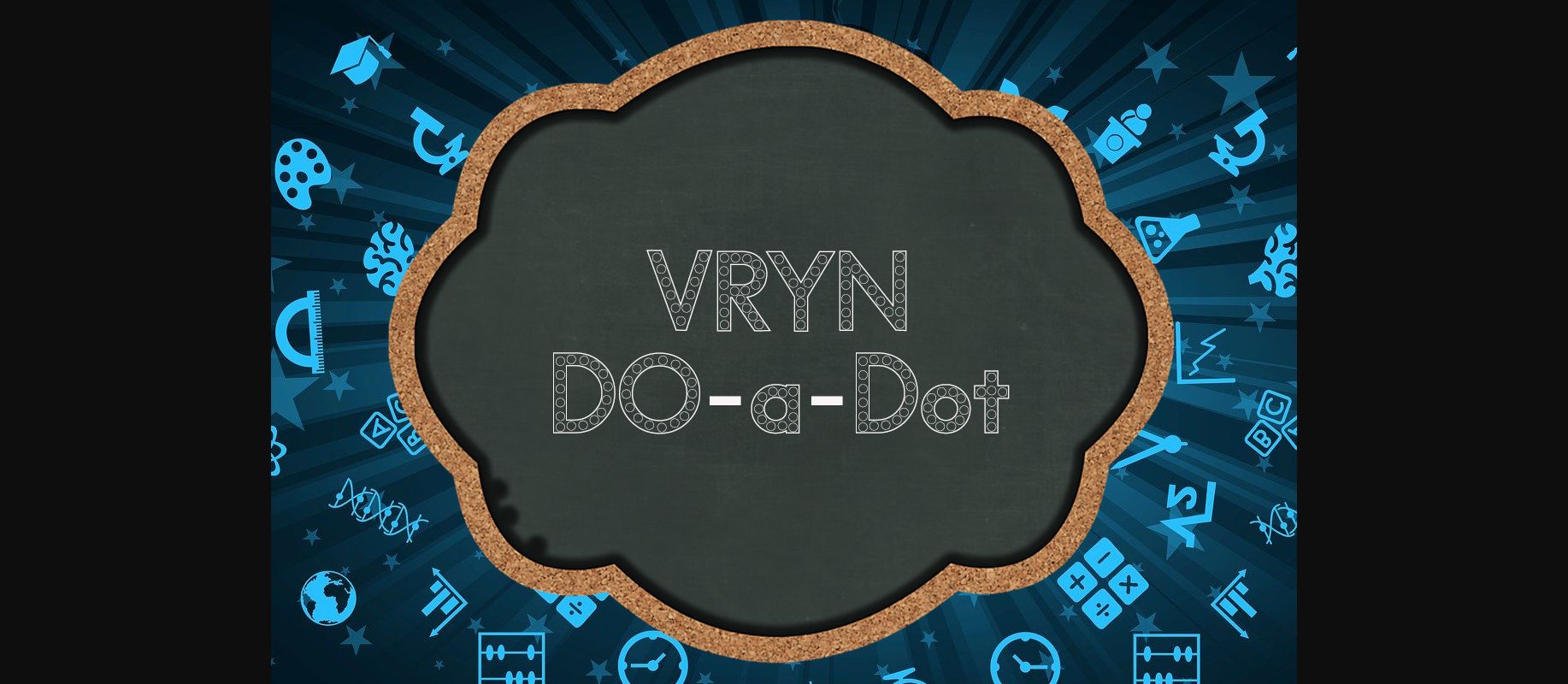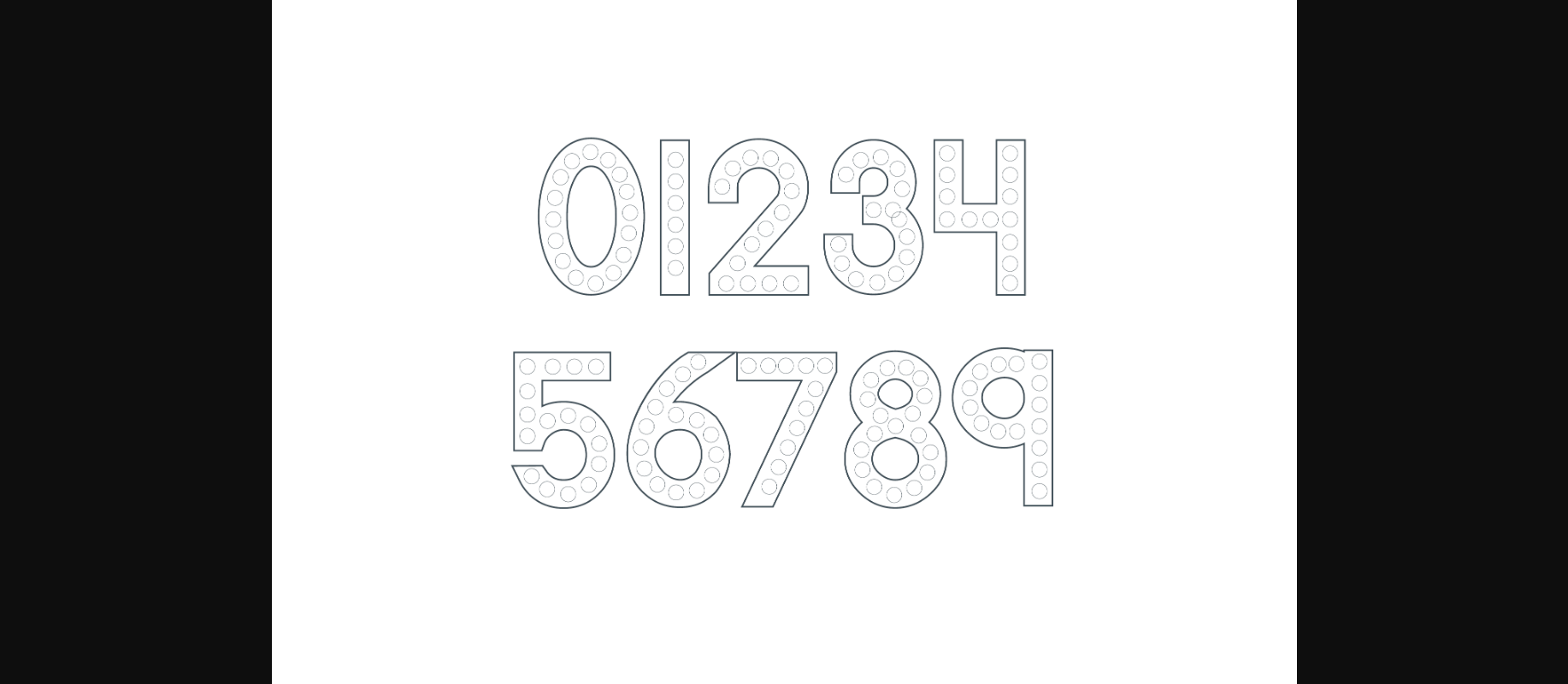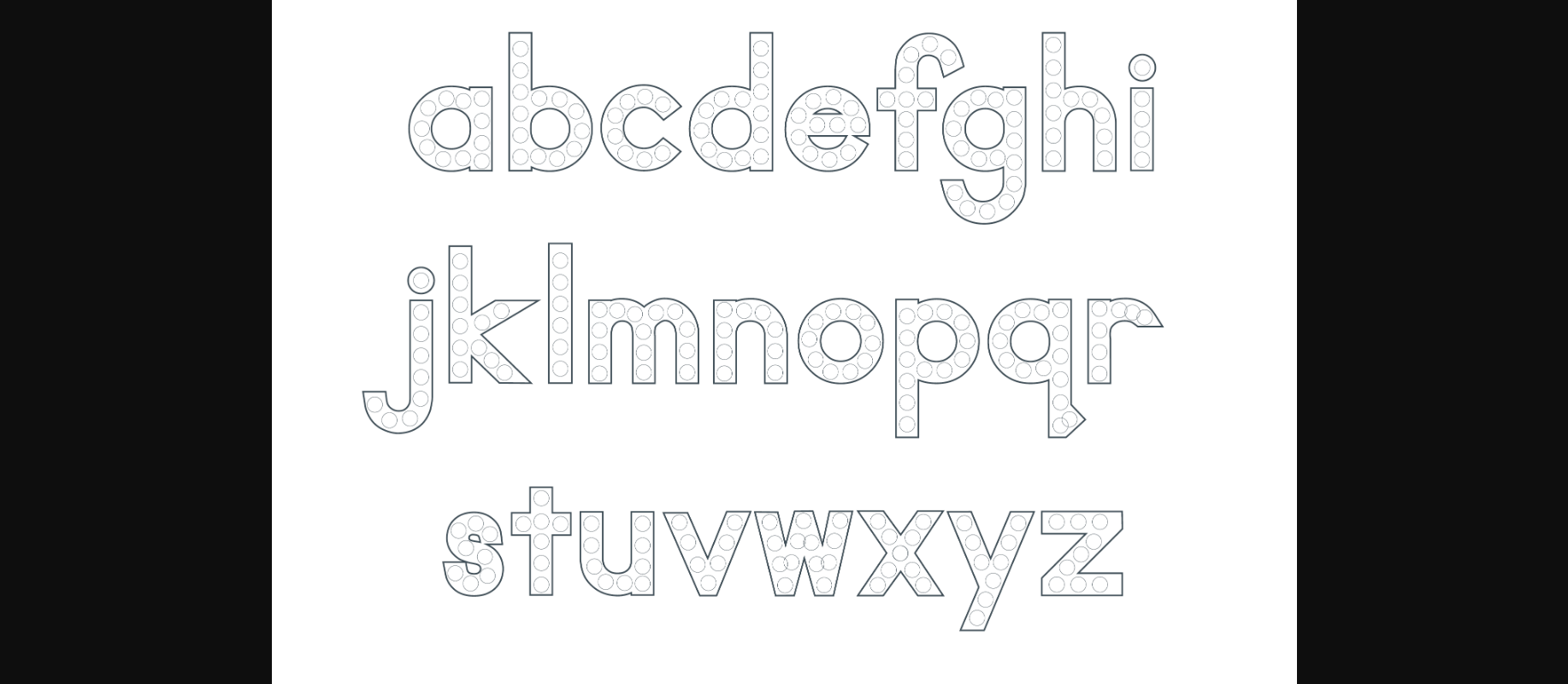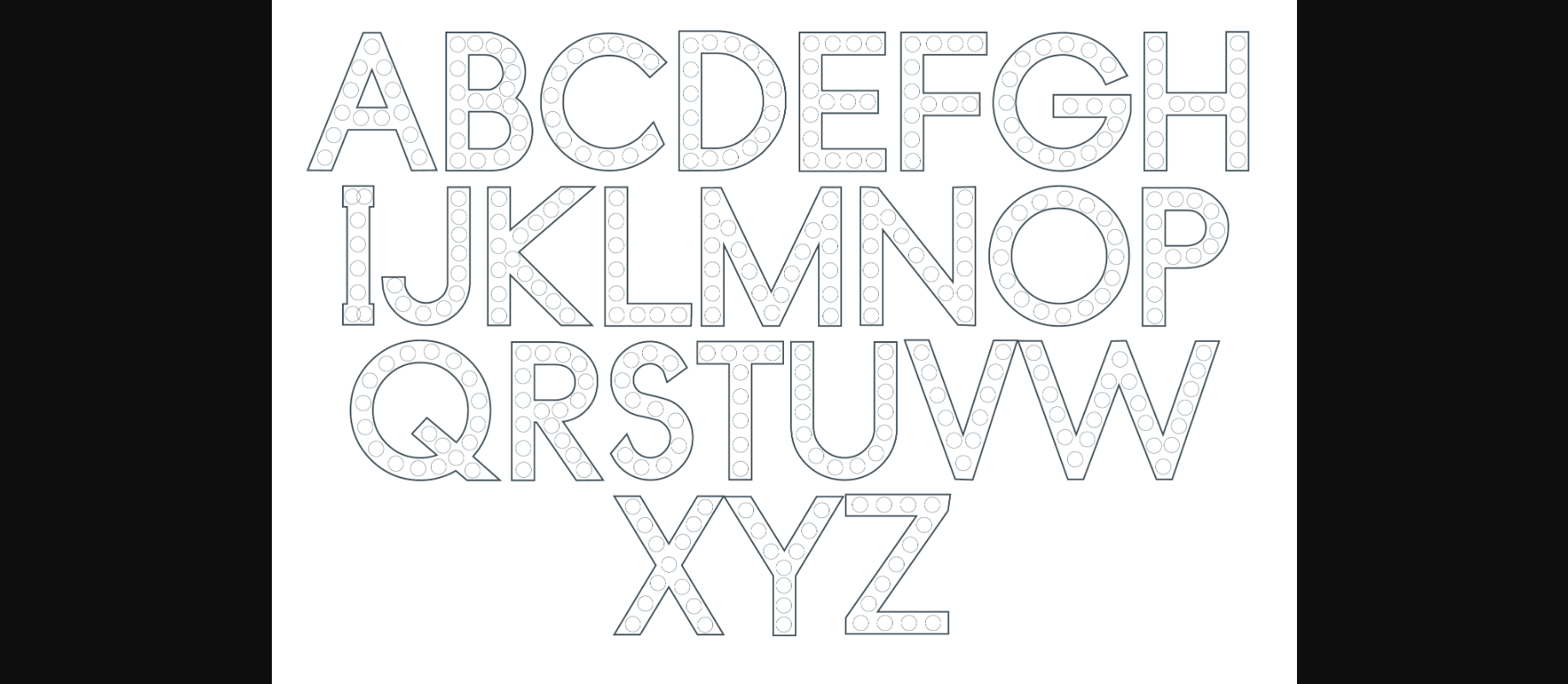
About Do a Dot Font
Do a Dot is an incredibly unique decorative font. Masterfully designed to become a true favorite, this font has the potential to bring each of your creative ideas to the highest level!